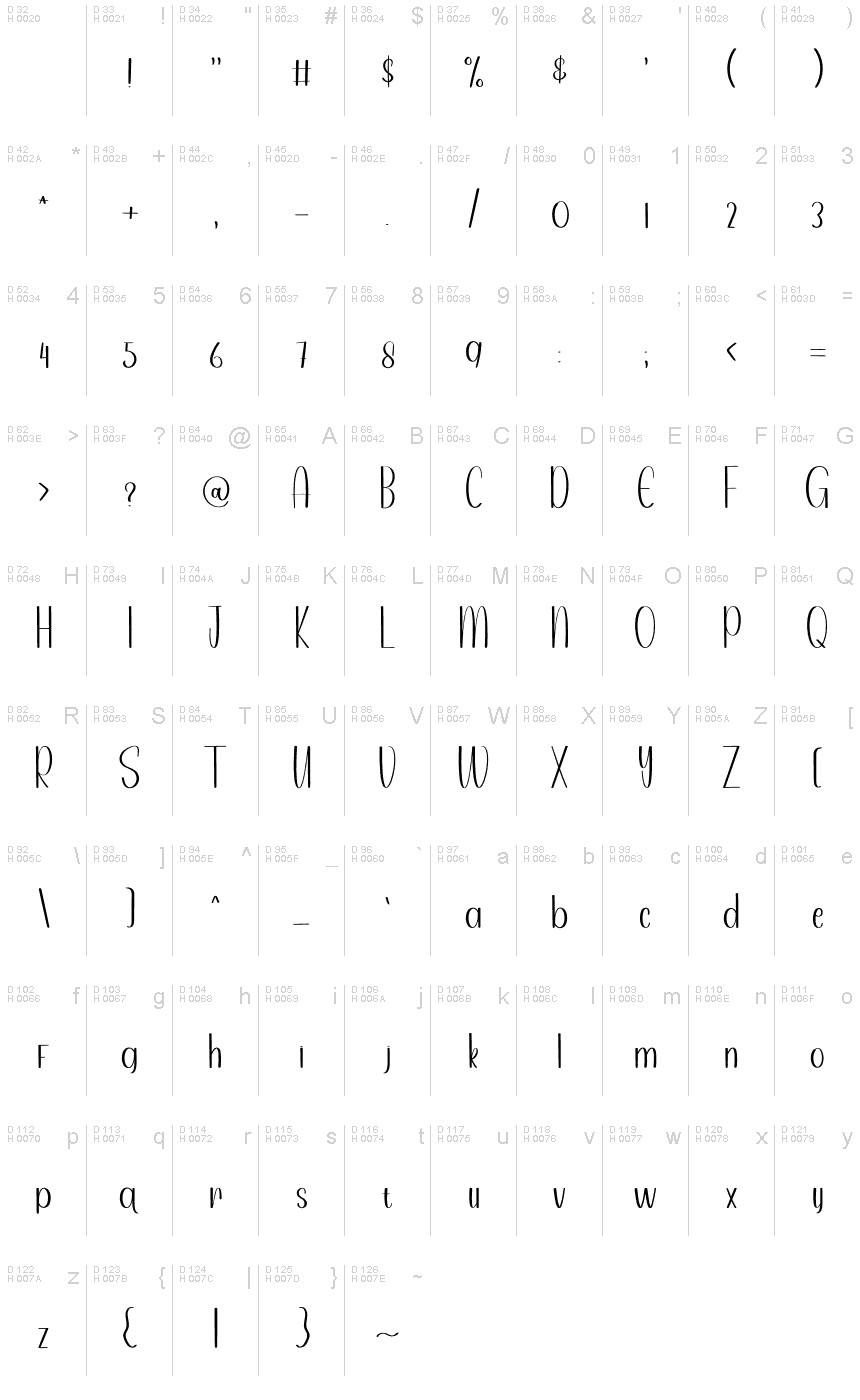
OCTROUBLE
Octrouble, a handwritten gem from PiPi Creative, exudes a playful yet sophisticated charm that instantly captivates the eye. With its semi-light weight, this font dances between delicate and assertive, making it versatile for a myriad of creative endeavors. The artful irregularity of Octrouble's characters adds a personal touch to any project, evoking the authenticity and warmth of handcrafted work.
The aesthetic appeal of Octrouble lies in its balanced imperfection—each letter crafted as if with an artist's brush, bringing an organic fluidity that digital fonts often lack. Its style is refreshingly modern yet imbued with a timeless grace that allows designers to use it across various mediums—from branding and editorial designs to social media graphics and personalized stationery.
Embrace the unique flair of Octrouble for projects that require a touch of individuality without sacrificing elegance. Whether you're looking to infuse your work with personality or seeking a font that stands out effortlessly, Octrouble is poised to elevate your design narrative with its distinctive handwritten allure.